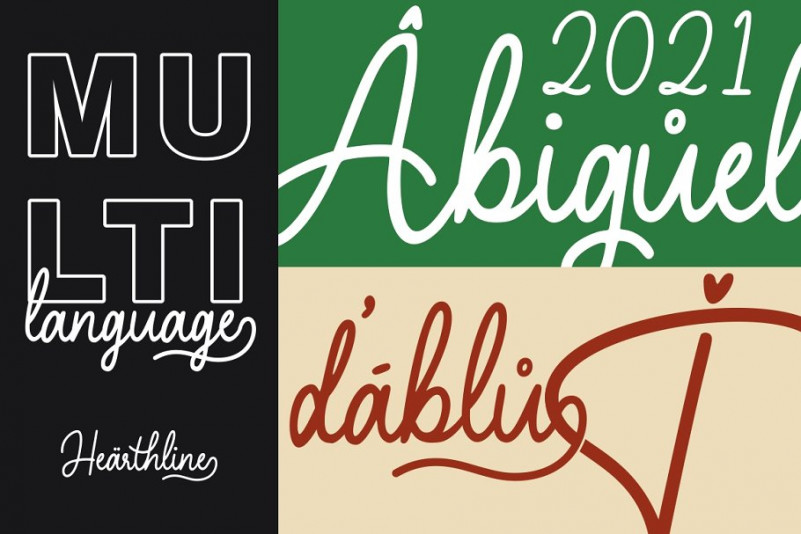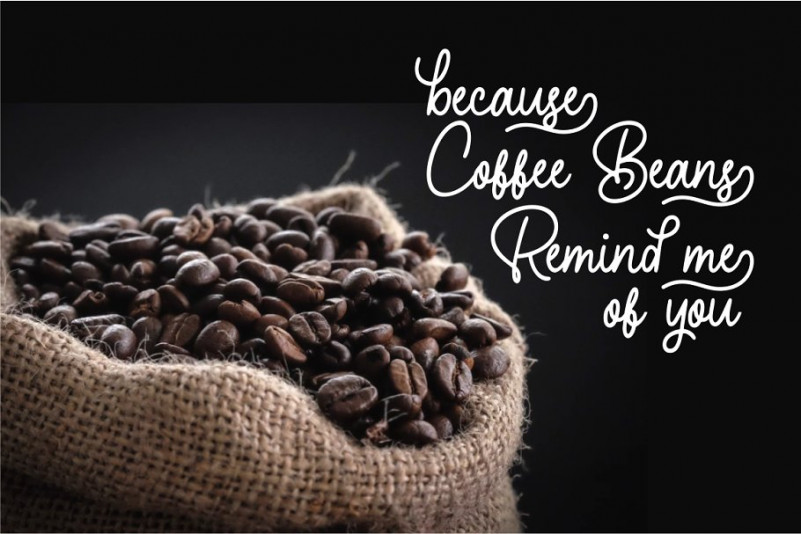
Hearthline Script – Demo Font
Thank you for looking Hearthline Font. It’s inspired by Retro style and combination with Hand Lettering style. It’s made with personality touch every single curve. I hope this can make inspire you from your work. Hearthline Script born from handwritting style fonts. Versatile for design poster, logo, branding, label, quote, headline profil, banner, t-shirt design, packaging, magazine, brochure, and many more your amazing work with this fonts.